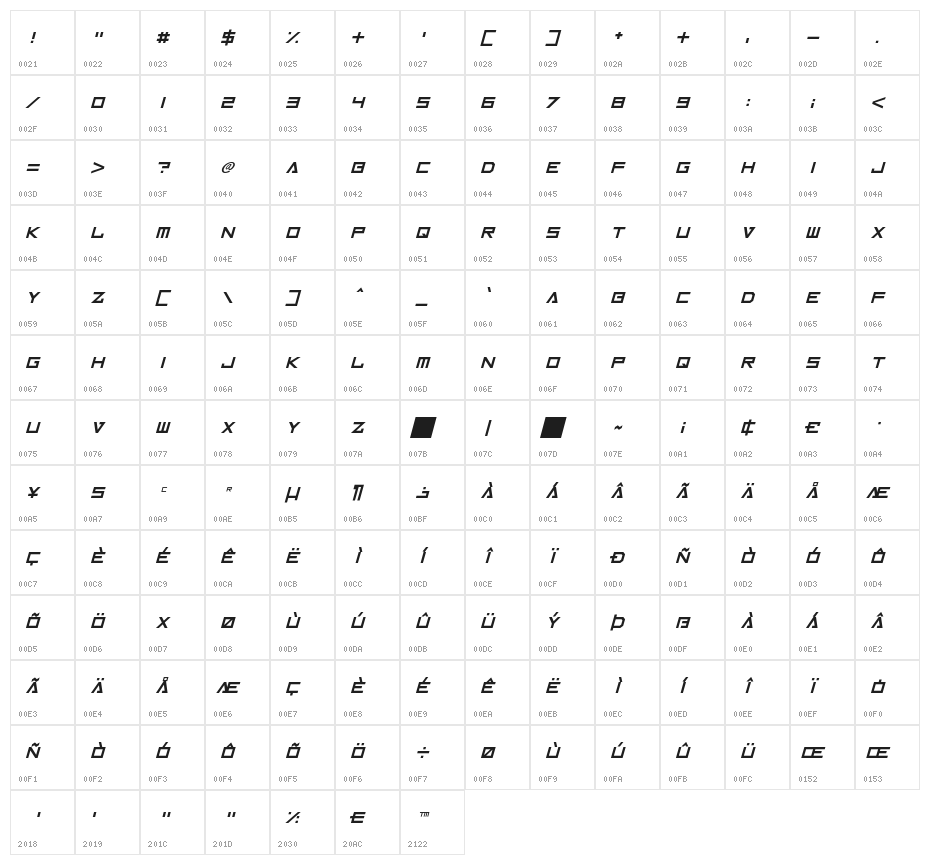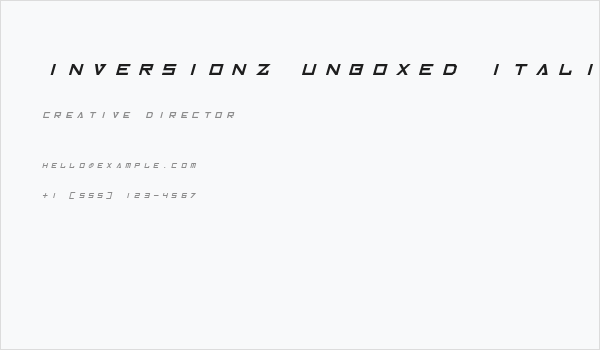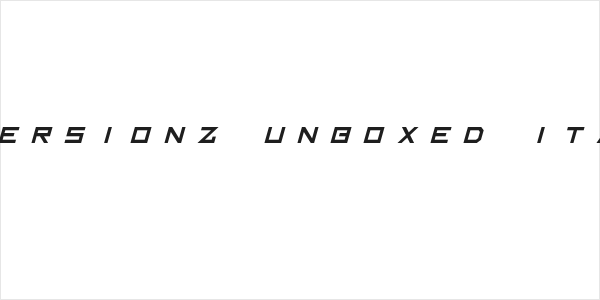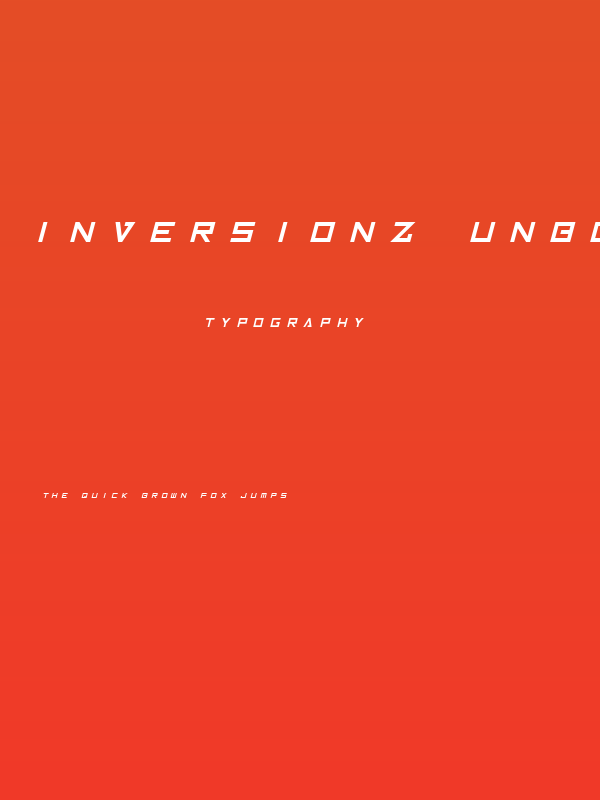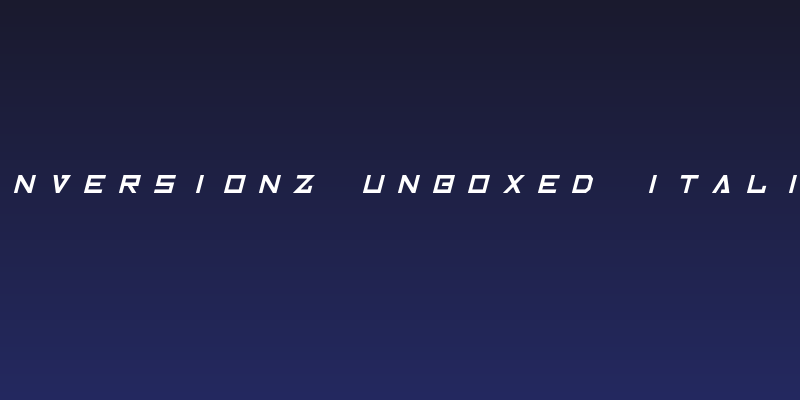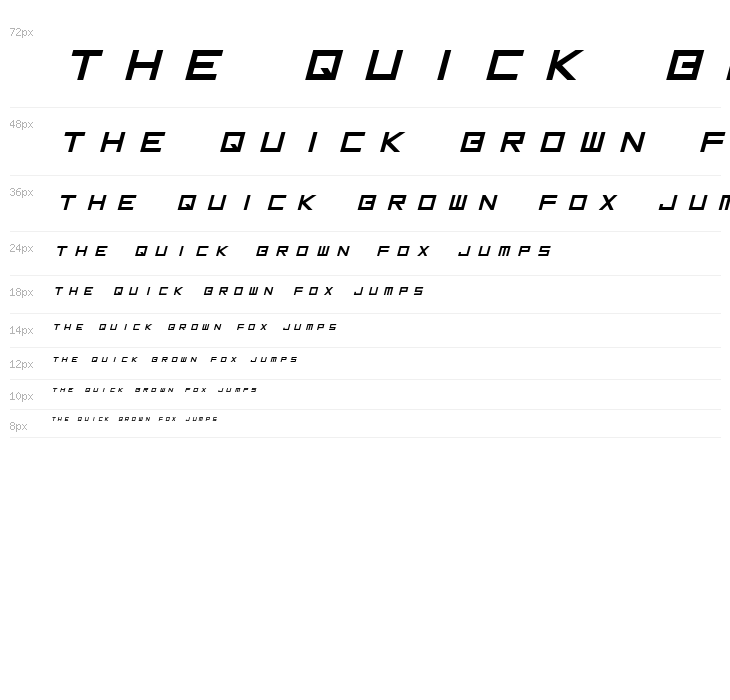
Inversionz Unboxed Italic Font
Inversionz Unboxed Italic Description
This font features a futuristic and angular design, characterized by sharp edges and a distinct geometric style. The characters are slightly italicized, giving a sense of motion and dynamism. Each letter is crafted with precision, maintaining a consistent height and width, which contributes to a uniform appearance. The numerals and special characters follow the same design principles, ensuring cohesiveness across all elements. The overall aesthetic is modern and sleek, making it suitable for projects that require a contemporary and edgy look.
Proposed ProjectsIdeal for technology branding, video game titles, sci-fi movie posters, and modern digital interfaces.